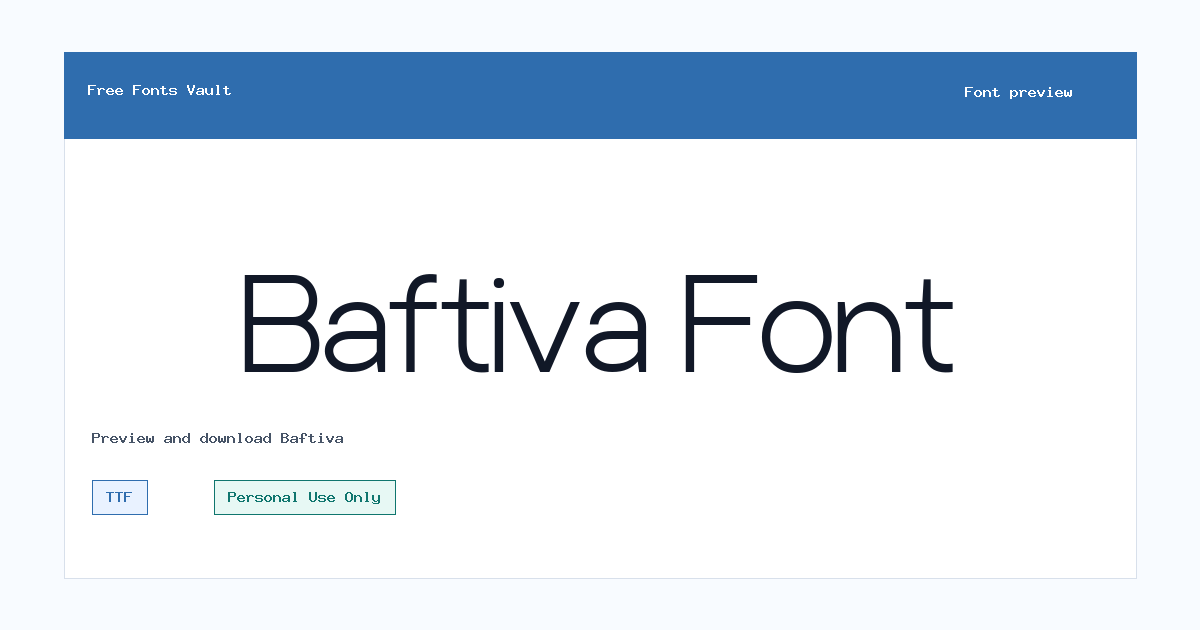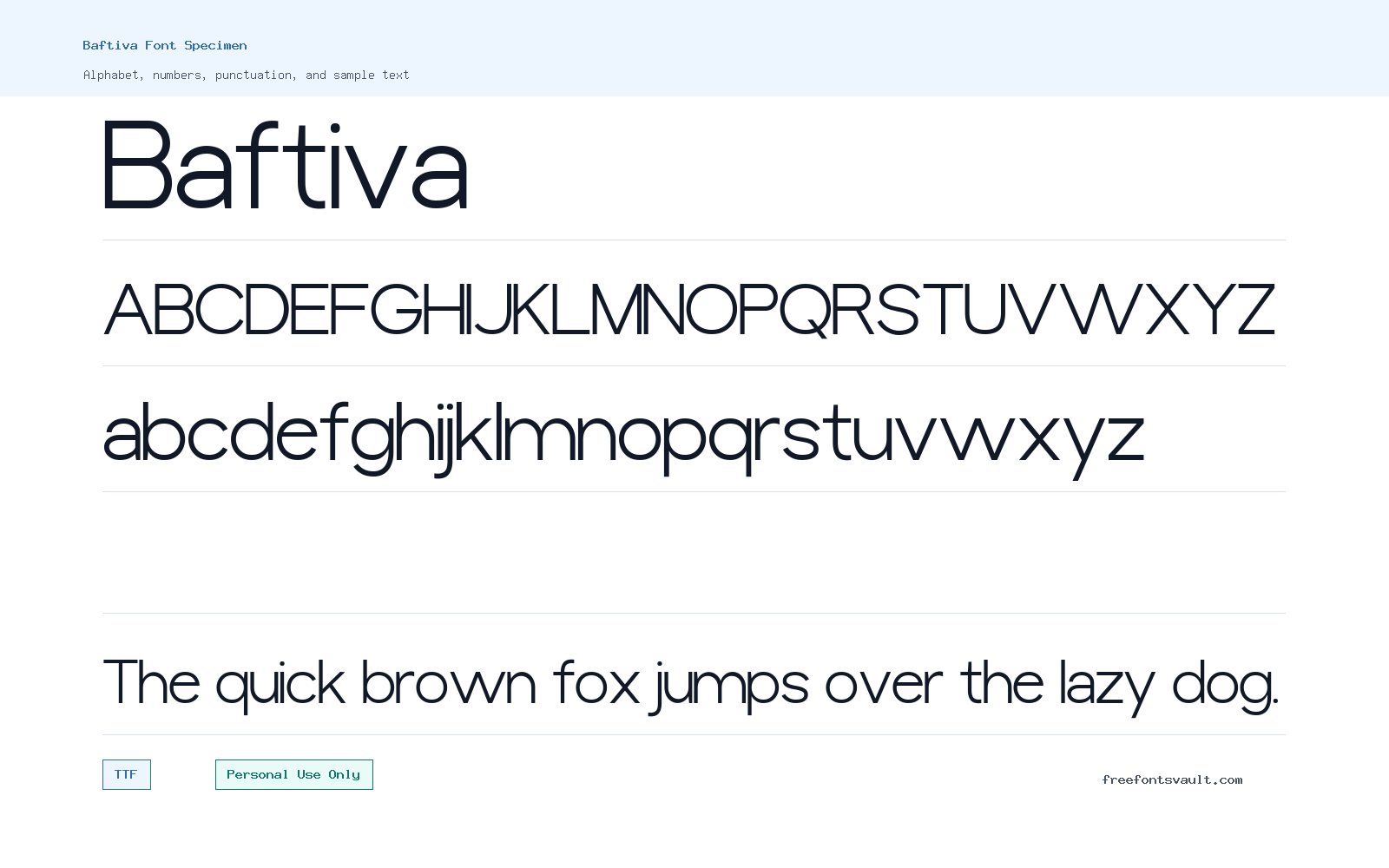
Baftiva
Baftiva Font
Baftiva is a thin sans serif font with a light, clean look that works best when you want text to feel simple and open rather than heavy or decorative.
About Baftiva Font
Baftiva is listed as a sans serif font, and the downloadable file is a TTF in a thin 100 weight. That makes it a better match for display settings than dense body copy. The narrow stroke weight can give headings, name marks, quote graphics, and minimal layout text a calm modern feel, especially when there is enough space around the letters. Because only a thin style is present, the font is most useful when the design needs subtle emphasis instead of a full family with bold, italic, or multiple weights.
For the best preview, test Baftiva with the exact words you plan to use. Thin fonts can look elegant at large sizes but may lose clarity when scaled down, placed over busy images, or printed with low contrast. Try it in short phrases first: a poster title, a personal logo draft, a social media heading, a mood board label, or a clean website hero line. Pair it with a more readable text face for paragraphs, menus, and small captions. A neutral sans serif or a plain serif can help keep longer information easy to read while Baftiva handles the lighter display accent.
• Thin 100-weight sans serif style for light display typography
• Personal posters, quote graphics, mood boards, and title text
• Minimal headings, simple name layouts, and clean social media visuals
The designer is listed as FLAWLESSANDCO. No foundry name or designer website is recorded for this font entry.
Use Baftiva at larger sizes with strong contrast and generous spacing. Avoid relying on it for long paragraphs, small UI labels, or low-resolution artwork where the thin strokes may become hard to read.
What type of font is Baftiva?
Baftiva is listed as a sans serif font. The available file is a thin 100-weight style.
What is Baftiva best used for?
It is best suited to short display text such as titles, personal branding drafts, quote images, posters, and clean social graphics.
Should I use Baftiva for body text?
It is not the strongest choice for long reading text because the thin weight can reduce clarity at small sizes. Pair it with a more readable font for paragraphs.